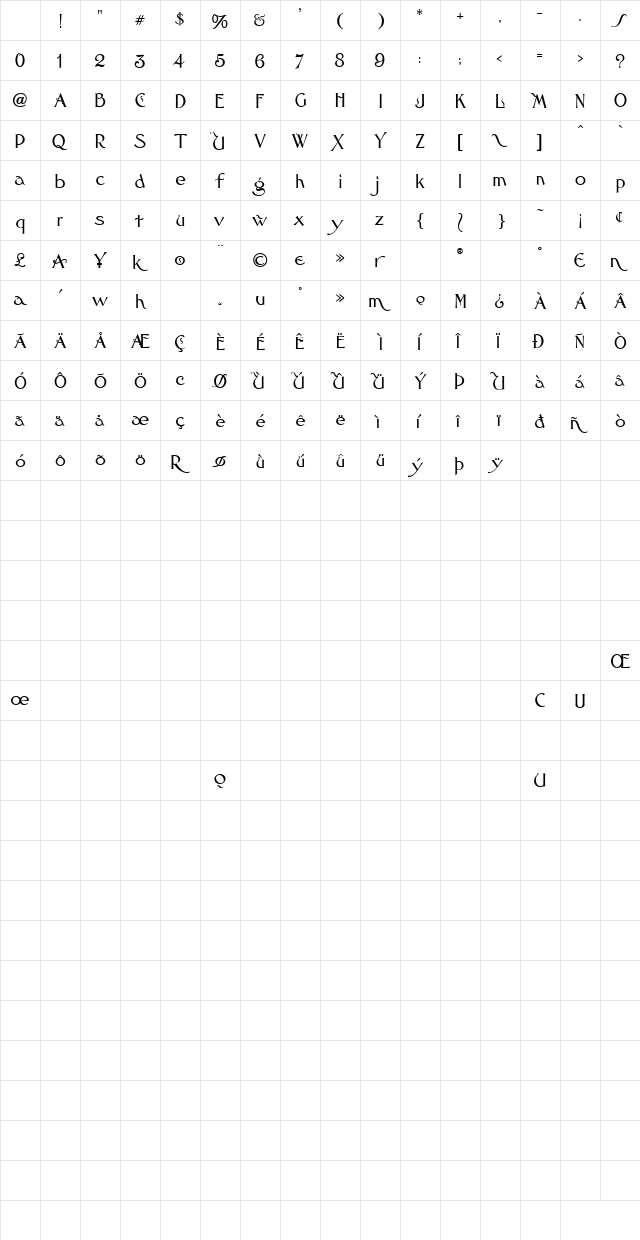
LHF Tyler Bold Regular
Design Context for LHF Tyler Bold
LHF Tyler Bold is a composed and adaptable typeface that performs quietly and consistently across a wide range of design contexts. Its bold stroke weight gives it real presence on the page.